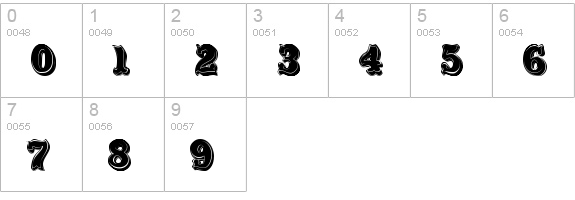
Carnival Rimmed Font Details
Introducing Carnival Rimmed, a captivating and whimsical font that will instantly transport you to a world filled with joy and laughter. This delightful typeface is perfect for adding a touch of playfulness to any project, whether it be a party invitation, a children's book, or a fun-filled advertisement. Carnival Rimmed features charming, rounded letterforms that dance across the page, exuding a sense of excitement and merriment. Every character is intricately designed with a unique rimmed outline, giving the font a distinctive and eye-catching appearance. With its vibrant and energetic vibe, Carnival Rimmed is sure to bring a smile to anyone's face. Its bold and lively nature makes it an ideal choice for bringing attention and adding a splash of color to your designs. Whether you're creating a poster for a carnival event, designing a birthday card, or simply looking to infuse some cheer into your project, this font will effortlessly do the trick. But what makes Carnival Rimmed even more special? It's completely free! Yes, you read that right. This font is freely available to download at FontsMarket.com, where you can easily access and enjoy this delightful typeface without breaking the bank. So go ahead and let your imagination run wild with Carnival Rimmed – the possibilities are endless!